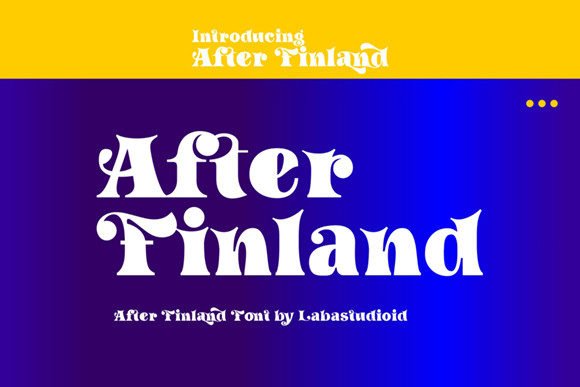
Introduction to After Finland Font
After Finland is a unique and beautiful serif font.
The harmony and balance of its characters are so unique, making this font memorable and impressive It is the right choice for logos, branding, packaging, labels, advertising, and more.
Key Features of After Finland Font